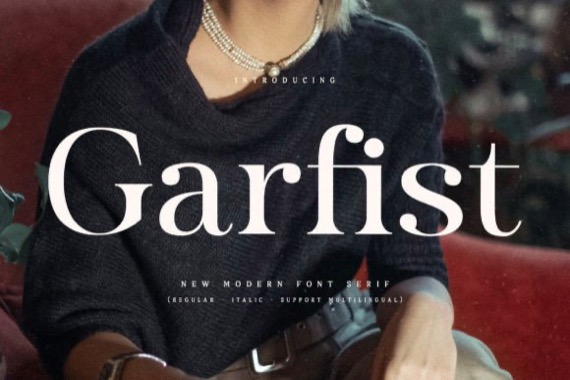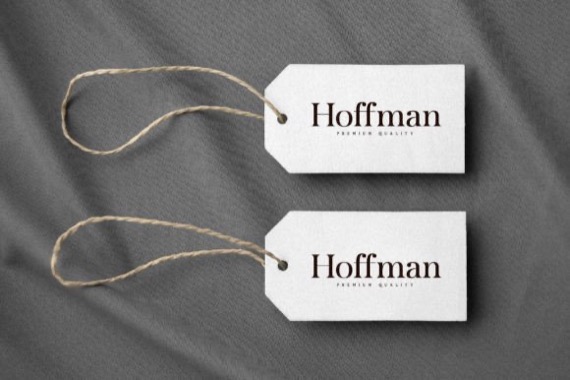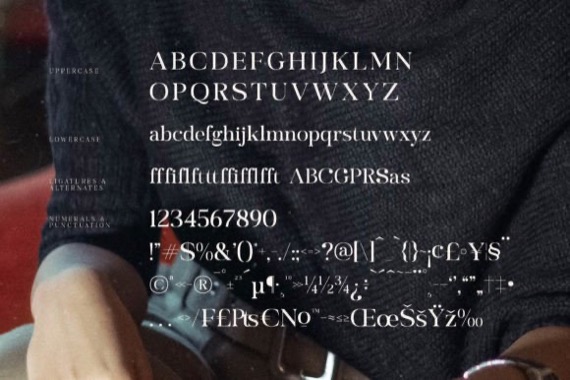
Garfist is a vintage and modern serif font that was created and released by Storytype Studio. It is perfect for an elegant & luxurious logo, book or movie title design, fashion brand, magazine, clothes, lettering, quotes, and so much more.
Garfist Serif Font